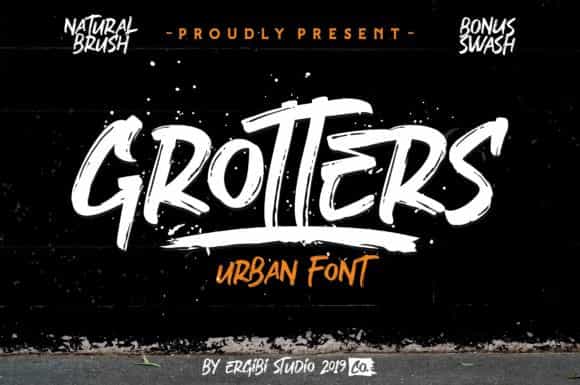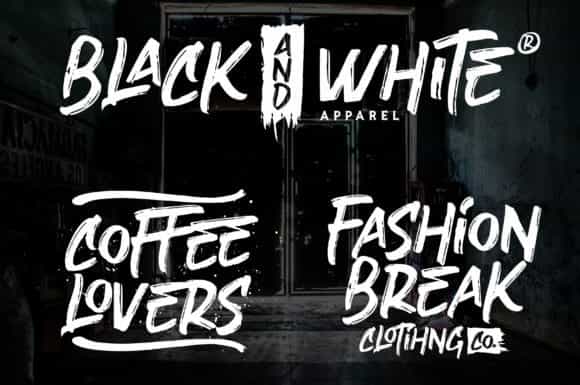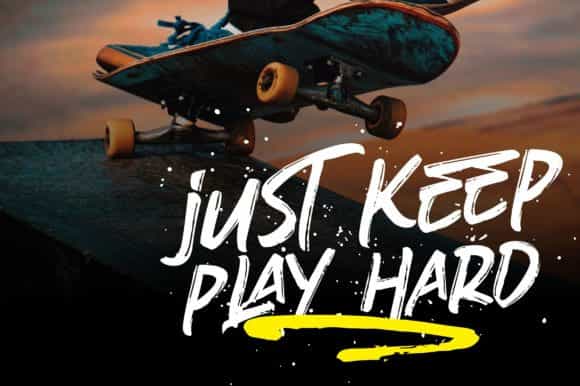
Introducing Grotters Brush Font. Grotters Urban Font is a supercharged, With extra attention to quick strokes and sharp details Grotters is ideal for logos, apparel, T-Shirts, hoodies, quotes, product packaging, or anything which needs a typographic turbo-boost. Multilingual support is included for the following languages: English, Danish, Dutch, Estonian, Faroese, Filipino, Finnish, French, Galician, German, Icelandic, Indonesian, Irish, Italian, Norwegian Bokmål, Norwegian Nynorsk, Portuguese, Spanish, Swedish, Swiss German.